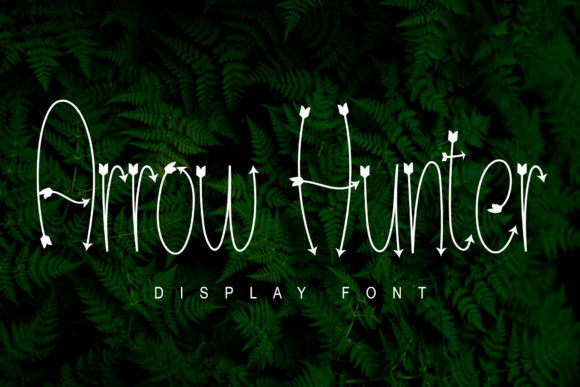
The Arrow Hunter Font: A Designer’s New Best Friend
The Arrow Hunter font is a game-changer for designers, crafters, and creative hobbyists alike. Its incredibly versatile style makes it perfect for a wide range of projects, from wedding invitations and thank you cards to quotes, greeting cards, logos, business cards, and more.
- ✨ Unique and eye-catching design that’s sure to make your projects stand out
- ✅ Highly versatile and adaptable to different design styles and themes
- 💬 Easy to read and understand, even at smaller font sizes
- 🎨 Works well with a variety of color schemes and graphics
While the Arrow Hunter font is amazing, it’s not perfect. Here are a few things to keep in mind:
- 🤔 Some users may find the font a bit too playful or casual for certain projects
- ⚠️ May not work well with very long blocks of text or body copy
The Story Behind Arrow Hunter Font
The Arrow Hunter font was designed with the goal of creating a unique, versatile font that could be used for a wide range of design projects. The designer wanted to create a font that was both fun and elegant, with a touch of playfulness. The result is a font that’s perfect for designers, crafters, and creative hobbyists who want to add a little extra something to their projects.
Q: What type of projects is the Arrow Hunter font best suited for?
A: The Arrow Hunter font is perfect for wedding invitations, thank you cards, quotes, greeting cards, logos, business cards, and more.
Q: Is the Arrow Hunter font easy to read?
A: Yes, the Arrow Hunter font is designed to be easy to read, even at smaller font sizes.
Q: Can I use the Arrow Hunter font with other fonts?
A: Yes, the Arrow Hunter font can be paired with other fonts to create a unique and visually appealing design. Experiment with different font combinations to find the perfect look for your project.